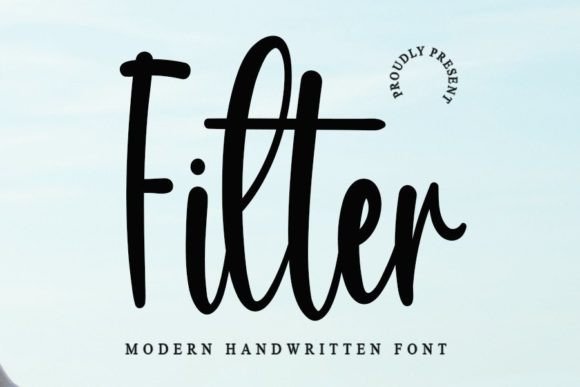
Dive into the alluring world of Filter, a captivating script font that will elevate your digital creations to new heights of elegance. Crafted with meticulous precision by the renowned PiPi Creative, this font is not just a collection of letters; it's a masterpiece waiting to adorn your designs.
Indulge in the ethereal beauty of Filter, where each stroke dances with grace and fluidity, capturing the essence of a heartfelt signature. Its charming handwritten style weaves a tapestry of emotions, evoking a sense of timeless sophistication and personal connection.
Step into a realm where your words become art, as Filter transforms your digital canvas into a masterpiece. Its versatility knows no bounds, making it the ideal companion for a myriad of projects. From heartfelt letters and captivating social media posts to eye-catching logos and stunning invitations, Filter empowers you to express your creativity with unparalleled style.
Unleash your imagination and let Filter guide your hand as you craft designs that resonate with authenticity and elegance. Its timeless appeal ensures that your creations will stand the test of time, leaving a lasting impression on all who behold them.
Embrace Filter today, and embark on a creative journey where every stroke tells a captivating story. Elevate your designs to new heights of beauty and sophistication, and let your creations shine with the timeless elegance of Filter.